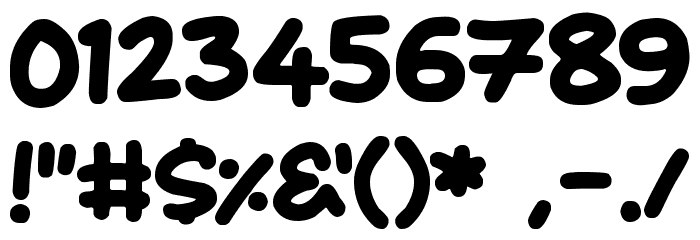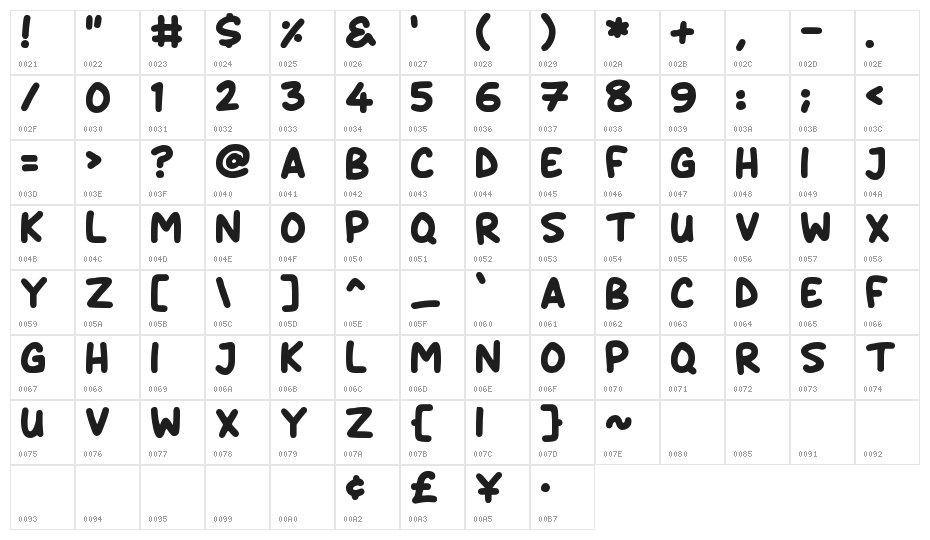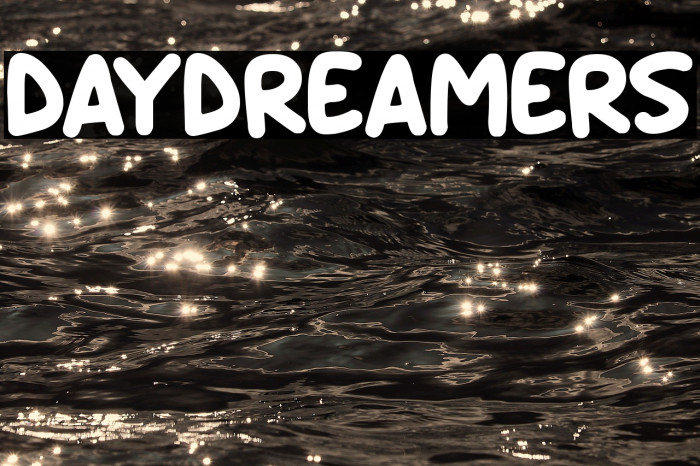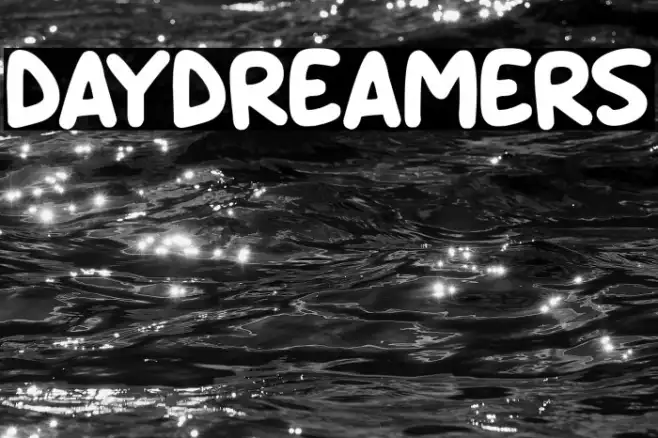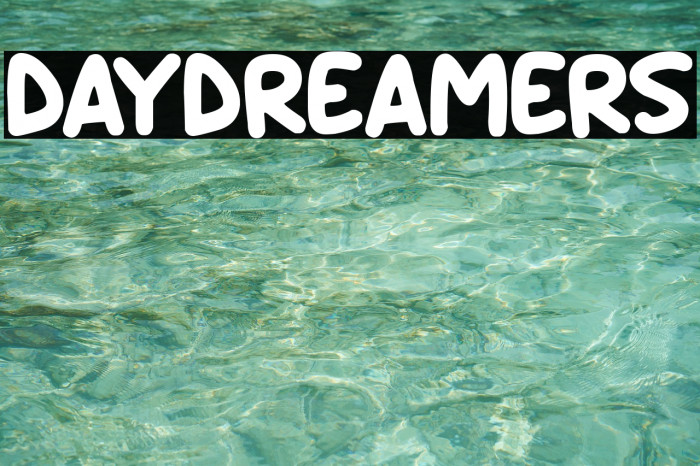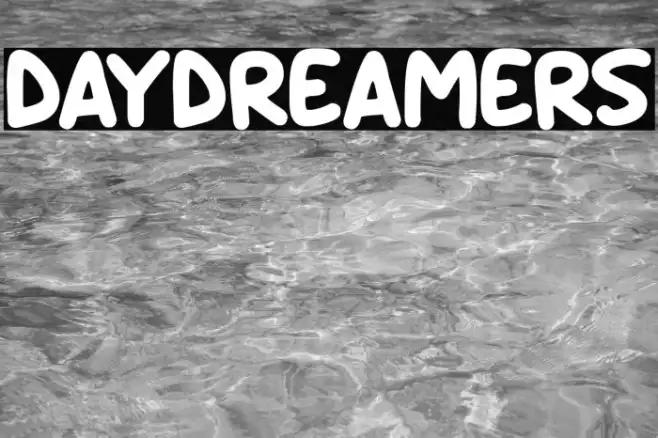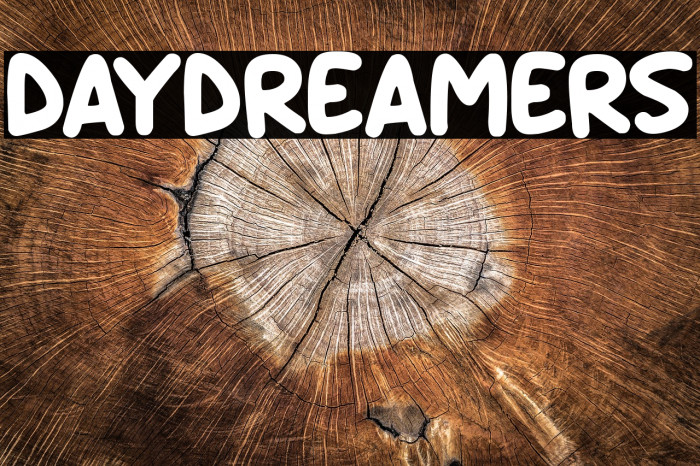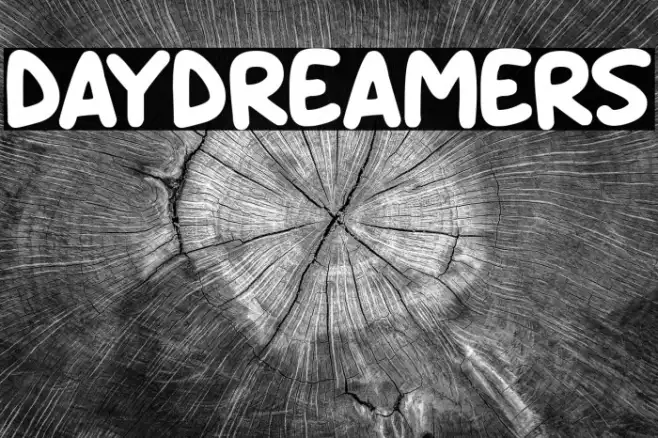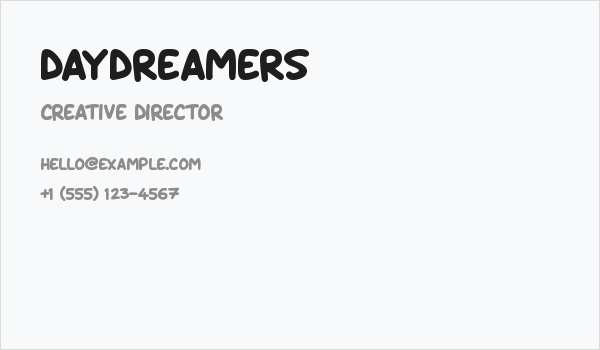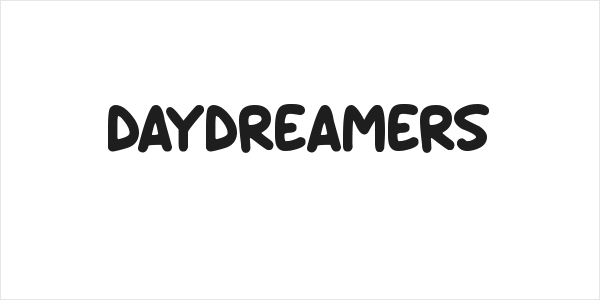
Daydreamers Font
Daydreamers Description
This playful and bold font features rounded edges and a hand-drawn aesthetic, giving it a friendly and approachable feel. The characters are thick and uniform, with a consistent stroke width that adds to its bold appearance. The letters are slightly irregular, enhancing the casual and whimsical style. The font includes both uppercase and lowercase letters, numerals, and a variety of special characters, making it versatile for different design needs. Its unique style makes it stand out, perfect for projects that require a touch of creativity and fun.